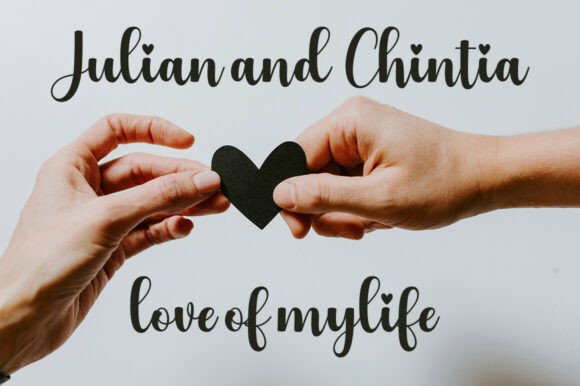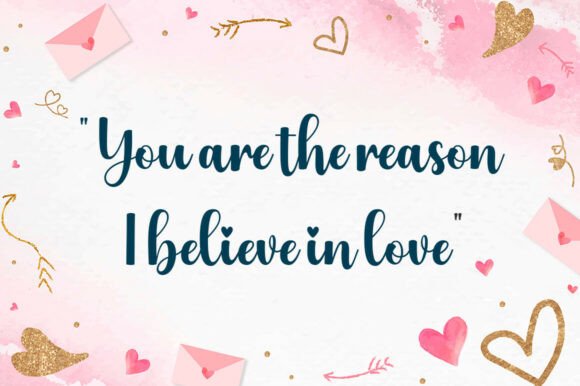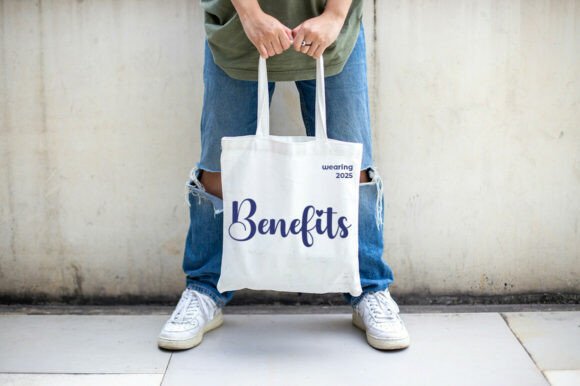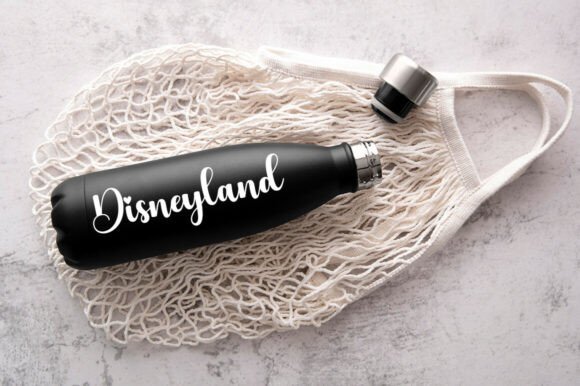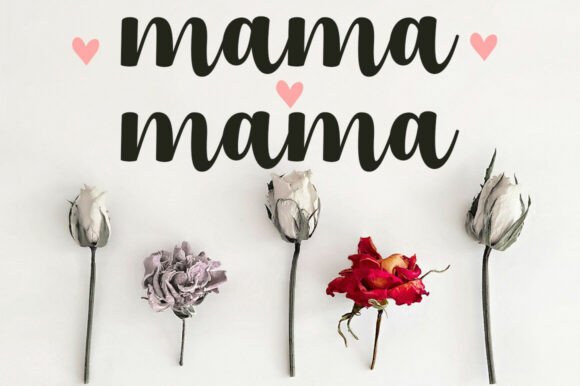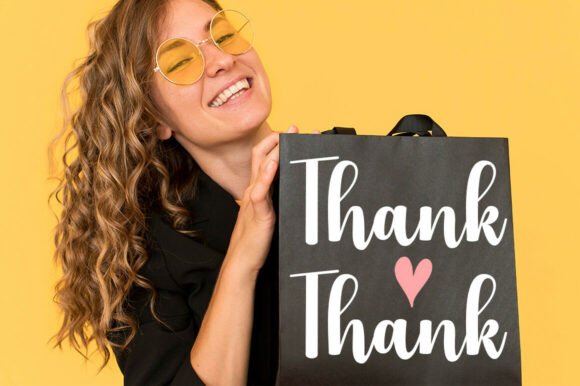
Discover the Elegance of Bailey Caithlyn Font: Elevate Your Designs with Contemporary Calligraphy
In the realm of typography, few fonts manage to capture the essence of contemporary calligraphy as exquisitely as the Bailey Caithlyn Script. This stunning font is a masterpiece of modern design, blending elegance with an effortless style that is both captivating and versatile. Bailey Caithlyn is not just a collection of letters and characters; it’s an artistic tool that brings a touch of sophistication and charm to a wide array of applications, making it a must-have for designers and crafters alike.
The Beauty of Bailey Caithlyn Script
Bailey Caithlyn Script stands out with its easy-going yet sophisticated style, richly imbued with artistic swashes that add a dynamic flair to any design. This font is meticulously crafted to convey a sense of beauty and elegance, making it an ideal choice for projects that demand a high level of sophistication. Whether it’s adorning wedding invitations with a romantic touch, enhancing logos and product packaging with a memorable charm, or simply adding a professional edge to business branding, Bailey Caithlyn Script proves to be a versatile and invaluable asset.
Applications of Bailey Caithlyn Font
The versatility of Bailey Caithlyn Script is one of its most compelling attributes. This font can seamlessly transition across various mediums and applications, including:
- Wedding Invitations: Add an air of romantic sophistication to your wedding invitations, setting the tone for an unforgettable celebration.
- Logos and Branding: Infuse your brand with personality and elegance, making your logo stand out and leave a lasting impression on your audience.
- Product Packaging: Elevate your product packaging with a touch of charm and sophistication, making your products more appealing to potential customers.
- Headlines and Signage: Transform ordinary headlines and signs into pieces of art that capture attention and convey your message with style.
Why Choose Bailey Caithlyn Font?
Bailey Caithlyn Script is more than just a font; it’s a design solution that offers a multitude of benefits, including:
- Elegance and Sophistication: Bring a touch of elegance and sophistication to your designs, setting them apart from the ordinary.
- Versatility: Use Bailey Caithlyn Script across a variety of projects, from digital designs to print materials, with exceptional results.
- Personality: Add a unique personality to your brand or project, making it more relatable and engaging to your audience.
- Artistic Swashes: Enhance your designs with artistic swashes that add a dynamic and creative flair.
Tips for Using Bailey Caithlyn Font
To maximize the potential of Bailey Caithlyn Script, consider the following tips:
- Pair with Complementary Fonts: Combine Bailey Caithlyn Script with simpler fonts to create a balanced and visually appealing design.
- Experiment with Swashes: Take advantage of the artistic swashes to add a unique touch to your designs.
- Consider the Context: Tailor your use of Bailey Caithlyn Script to suit the context and tone of your project, ensuring consistency and coherence.
Bailey Caithlyn Script is a remarkable example of contemporary calligraphy that brings elegance, versatility, and personality to a wide range of design applications. Whether you’re a designer looking to elevate your branding projects or a crafter seeking to add a touch of sophistication to your creations, Bailey Caithlyn Font is an indispensable tool in your typography arsenal. With its easy-going style, artistic swashes, and endless possibilities, Bailey Caithlyn Script is poised to transform your designs and leave a lasting impression on your audience.